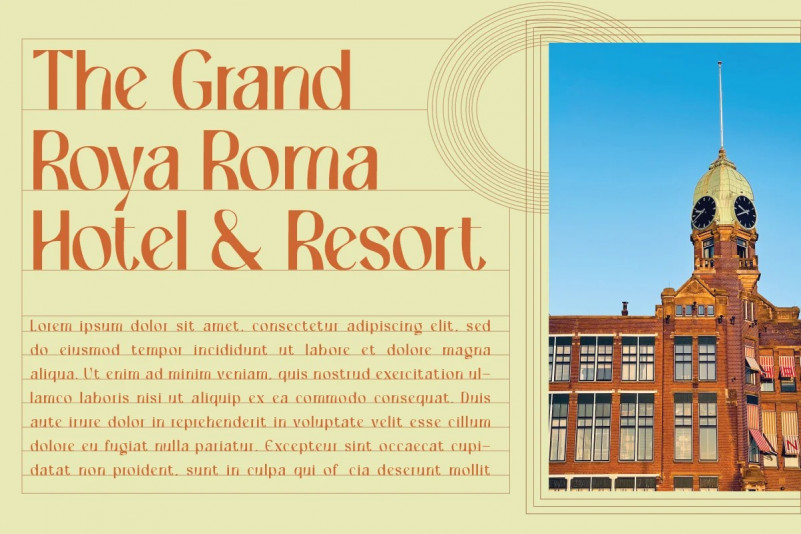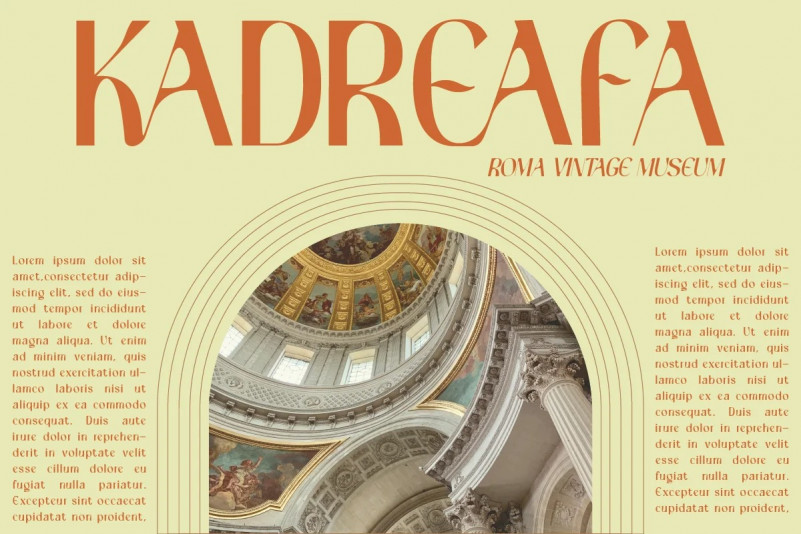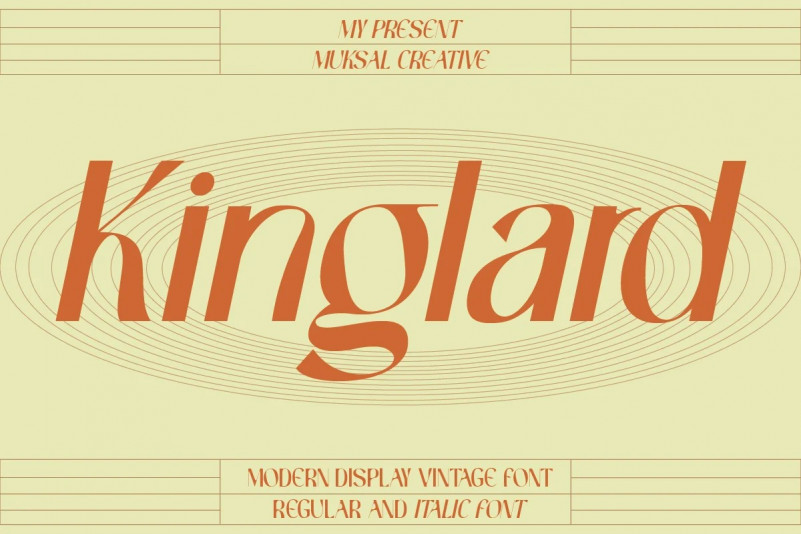
Kinglard Font
Kinglard Modern Display Vintage Font, special glyphs, ornament and multilingual support. It’s a very versatile font that works great in large and small sizes. Perfect for editorial projects, Logo design, Clothing Branding, product packaging, magazine headers, or simply as a stylish text overlay to any background image.